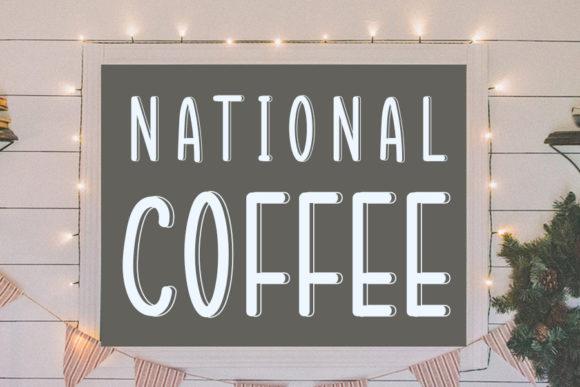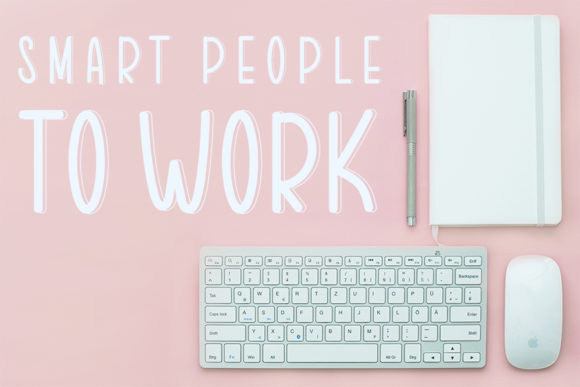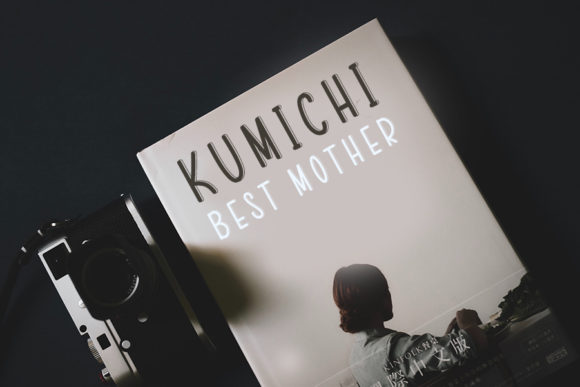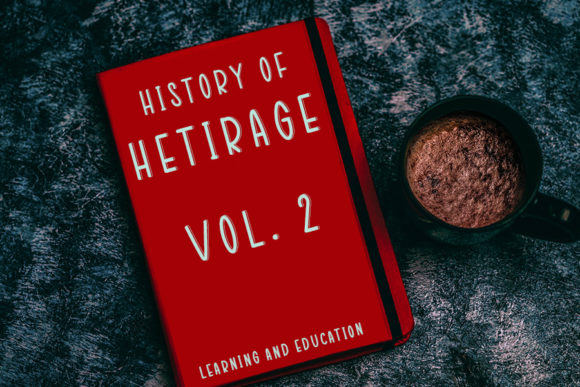
Discovery Book Font: A Simple yet Versatile Handwritten Font for Designers
Are you a designer or crafter looking for a font that can add a personal touch to your projects? Look no further than the Discovery Book Font! This simple and neat handwritten font is incredibly versatile, making it perfect for both formal and informal designs. In this article, we’ll dive into the features and benefits of the Discovery Book Font, and explore how you can use it to elevate your designs.
What is Discovery Book Font?
Discovery Book Font is a modern handwritten font that is characterized by its clean and simple lines. It’s a highly legible font that is easy to read, making it perfect for body text, headings, and titles. The font is designed to be versatile, allowing you to use it in a variety of design projects, from formal documents to informal social media graphics.
Features of Discovery Book Font
- Simple and Neat: The Discovery Book Font features simple and neat lines that give it a clean and elegant look.
- Handwritten: The font has a handwritten feel that adds a personal touch to your designs.
- Versatile: The font is incredibly versatile, making it perfect for both formal and informal designs.
- Highly Legible: The font is highly legible, making it easy to read in a variety of sizes and resolutions.
Benefits of Using Discovery Book Font
So why should you choose the Discovery Book Font for your designs? Here are just a few benefits of using this amazing font:
- Adds a Personal Touch: The handwritten feel of the Discovery Book Font adds a personal touch to your designs, making them more relatable and engaging.
- Perfect for Branding: The font’s versatility makes it perfect for branding projects, from logos to business cards.
- Easy to Read: The font’s high legibility makes it easy to read, even in small sizes.
- Great for DIY Projects: The font is perfect for DIY projects, such as crafting, scrapbooking, and journaling.
How to Use Discovery Book Font in Your Designs
So how can you use the Discovery Book Font in your designs? Here are a few ideas to get you started:
- Pair it with Other Fonts: Pair the Discovery Book Font with other fonts to create a unique and interesting look.
- Use it for Headings and Titles: Use the font for headings and titles to add a personal touch to your designs.
- Add it to Your Social Media Graphics: Use the font to add a personal touch to your social media graphics, such as Instagram posts and Facebook graphics.
- Use it for DIY Projects: Use the font for DIY projects, such as crafting, scrapbooking, and journaling.
Tips and Tricks for Using Discovery Book Font
Here are a few tips and tricks to keep in mind when using the Discovery Book Font:
- Experiment with Different Sizes: Experiment with different sizes to find the perfect size for your design.
- Play with Color: Play with different colors to find the perfect color for your design.
- Use it Consistently: Use the font consistently throughout your design to create a cohesive look.
| Font Name | Discovery Book Font |
| Author | FL Space |
In conclusion, the Discovery Book Font is a simple and neat handwritten font that is incredibly versatile. Its clean lines, handwritten feel, and high legibility make it perfect for both formal and informal designs. Whether you’re a designer or crafter, this font is sure to become a favorite in your collection. So why not give it a try and see how it can elevate your designs?